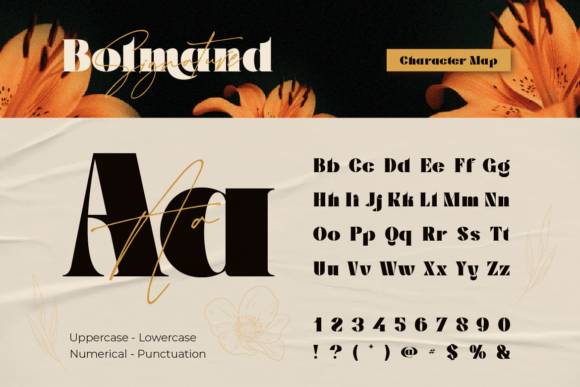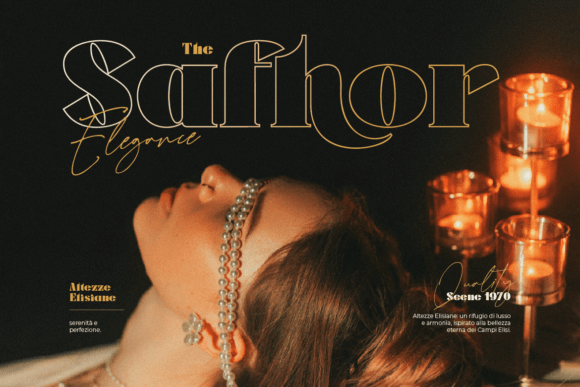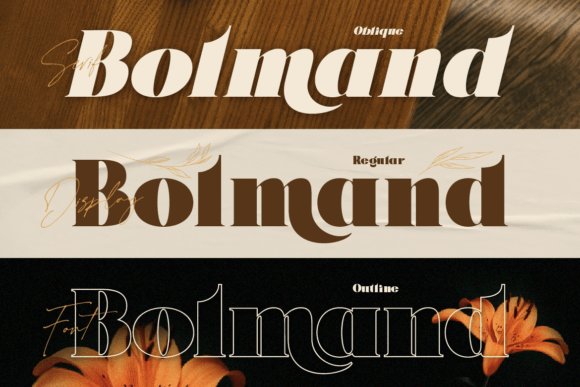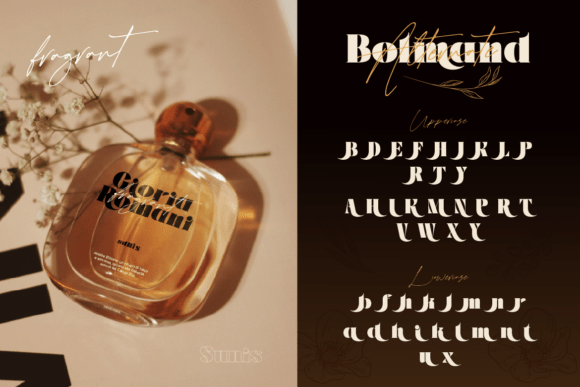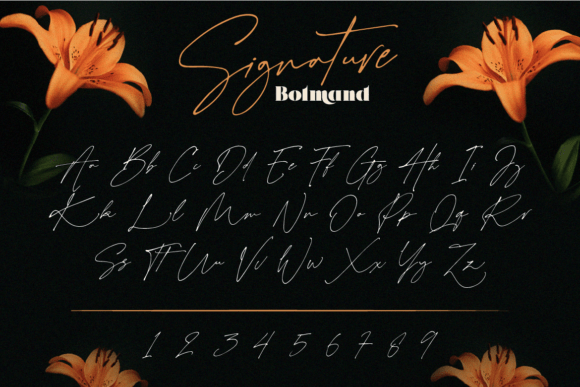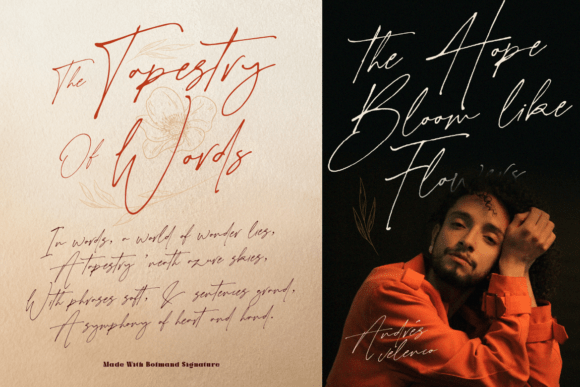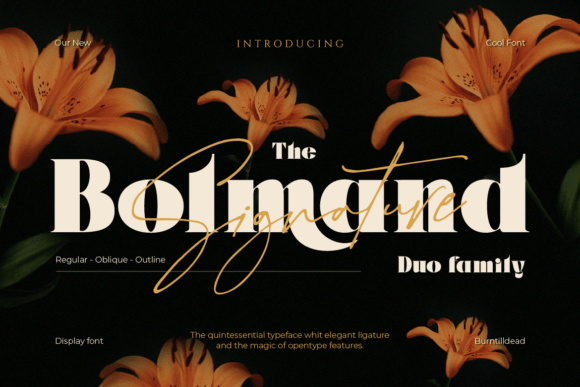
Introducing Bolmand Signature: The Ultimate Duo Font for Elegant Designs
In the world of typography, finding the perfect font that combines elegance, sophistication, and creativity can be a daunting task. However, with the Bolmand Signature Duo Family, your search is over. This stunning duo font is a masterful blend of bold elegance and handwritten charm, making it an ideal choice for designers and crafters looking to elevate their projects.
A Perfect Harmony of Display Serif and Signature Script
The Bolmand Signature Duo Family consists of two complementary fonts: a display serif and a signature script. The display serif font boasts a bold and elegant design, perfect for headlines, titles, and statements. Meanwhile, the signature script font adds a touch of warmth and personality, ideal for adding a human touch to your designs. Together, they create a harmonious balance that is sure to captivate your audience.
Three Serif Styles for Endless Creativity
What sets Bolmand Signature apart is its versatility. The font family includes three serif styles: regular, oblique, and outline. Each style offers a unique twist, allowing you to experiment with different typography aesthetics and creative expressions. Whether you’re designing a logo, packaging, or editorial content, Bolmand Signature provides the flexibility you need to bring your vision to life.
Regular: The Classic Choice
The regular style is the foundation of the Bolmand Signature Duo Family. Its classic design makes it perfect for a wide range of applications, from branding and logos to editorial design and wedding invitations.
Oblique: The Artistic Twist
The oblique style adds a touch of sophistication and elegance to your designs. Its subtle slant creates a sense of movement and fluidity, making it ideal for designs that require a bit of flair.
Outline: The Bold Statement
The outline style is perfect for making a bold statement. Its sleek and modern design creates a striking contrast, making it ideal for headlines, titles, and attention-grabbing designs.
Ligatures and Alternates: The Creative Freedom You Need
Bolmand Signature also includes ligatures and alternates, giving you the creative freedom to experiment with different typography combinations. With ligatures, you can create beautiful connections between letters, adding a touch of elegance and sophistication to your designs. Alternates provide additional options for customizing your typography, allowing you to create unique and distinctive designs.
A Balance of Modern and Classic
Bolmand Signature is designed with precision, bringing a balance of modern and classic elements to your designs. Its sophisticated design makes it perfect for high-end branding, luxury packaging, and editorial content, while its approachable feel ensures it remains accessible and engaging.
Endless Applications for Designers and Crafters
The versatility of Bolmand Signature makes it suitable for a wide range of applications, including:
- Branding and logos: Create a lasting impression with a custom logo that exudes elegance and sophistication.
- Packaging design: Elevate your packaging with a font that combines modern and classic elements.
- Editorial design: Add a touch of luxury to your editorial content with a font that commands attention.
- Wedding invitations: Create beautiful and elegant wedding invitations that set the tone for a special day.
In conclusion, Bolmand Signature is a game-changing duo font that offers a perfect blend of bold elegance and handwritten charm. With its three serif styles, ligatures, and alternates, this font family provides the creative freedom and typography aesthetics you need to elevate your designs. Whether you’re a designer or crafter, Bolmand Signature is the perfect choice for anyone looking to create stunning and sophisticated designs.